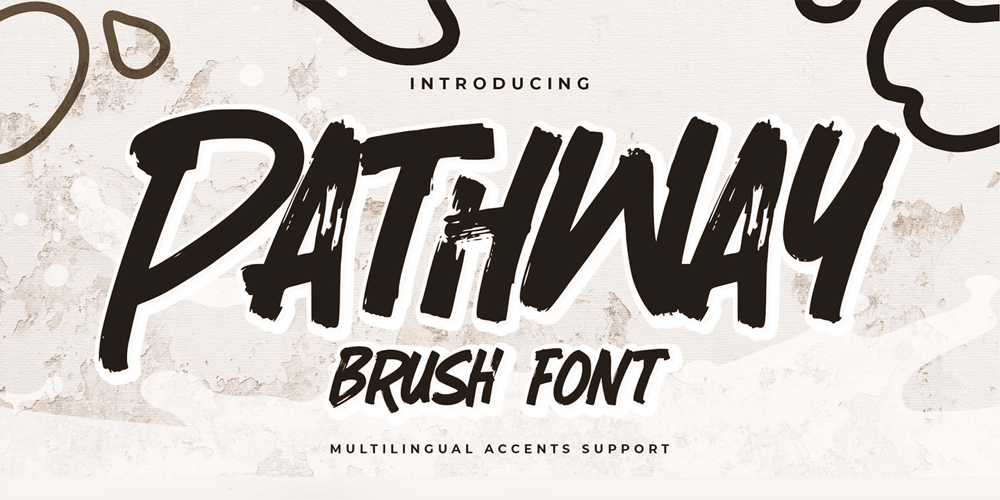
Pathway
Pathway font
Pathway Font Family was designed by Abdul Malik Wisnu, Anang Fibriyanto and published by Gassstype. Pathway contains 1 styles and family package options. Hello Everyone, introduce our new product font PATHWAY is a Brush Font.This is a Textured Natural Style and classy style with a clear style and dramatic movement.This font PATHWAY is great for your next creative project such as logos, printed quotes, invitations, cards, product packaging, headers, Logotype, Letterhead, Poster, Design this font is great for your creative projects such as watermark on photography, and perfect for logos & branding, invitation,advertisements,product designs, stationery, wedding designs,label ,product packaging, special events or anything that need handwritting taste.This font is PUA encoded which means you can access all of 11 Ligatures glyphs.